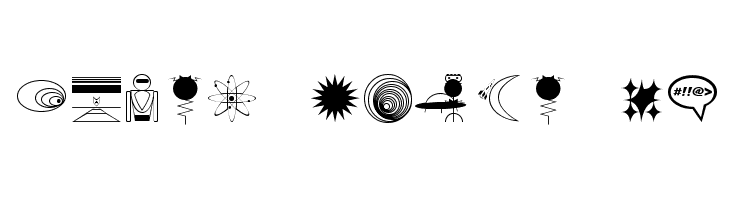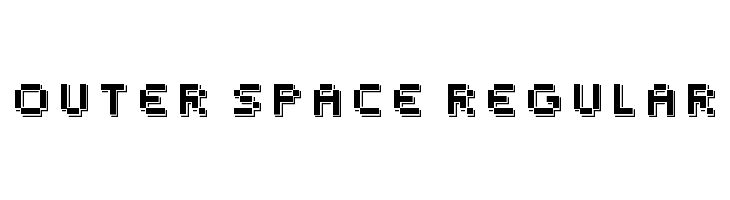
A collection of space-themed icons and illustrations.
A decorative font with space-themed icons and symbols, perfect for creative projects.
A futuristic, pixelated font with a bold, geometric design.